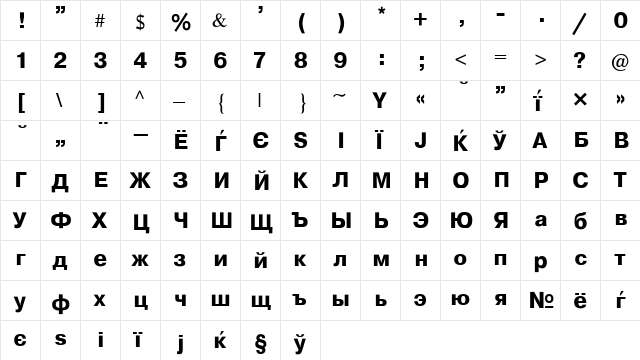
CyrillicHelv Bold
Design Context for CyrillicHelv Typeface
CyrillicHelv takes a measured approach to typography — its balanced proportions and neutral character make it a reliable workhorse for both digital and print work. Its bold stroke weight gives it real presence on the page.